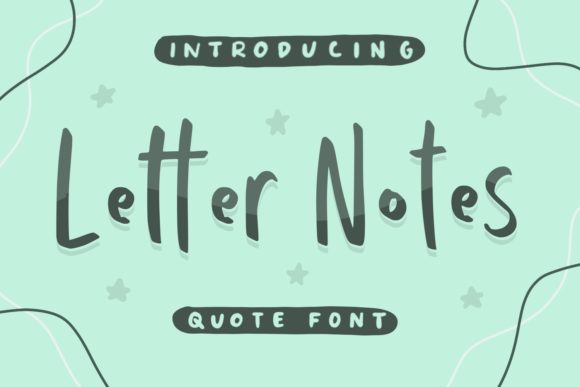
Unleash your creativity with Letter Notes, a captivating script font that dances across your designs with grace and charm. Its relaxed and casual style effortlessly blends with a myriad of design aesthetics, making it the perfect choice for adding a touch of warmth and personality to your projects.
Step into a world of endless possibilities with Letter Notes. Its versatile nature allows you to effortlessly craft stunning logos, eye-catching social media posts, and captivating website designs. Let your imagination soar as you explore the boundless variations this font offers, creating designs that resonate with your unique style.
Immerse yourself in the beauty of Letter Notes, a font meticulously crafted to evoke emotions and capture hearts. Its friendly and adaptable nature makes it the ideal companion for projects that aim to connect with audiences on a deeper level. Create designs that resonate, designs that leave a lasting impression.
Join the creative revolution with Letter Notes. Its ease of use makes it accessible to designers of all skill levels, empowering you to transform your design dreams into reality. Experience the joy of seamless design, where your ideas flow effortlessly onto the page, guided by the elegance of Letter Notes.